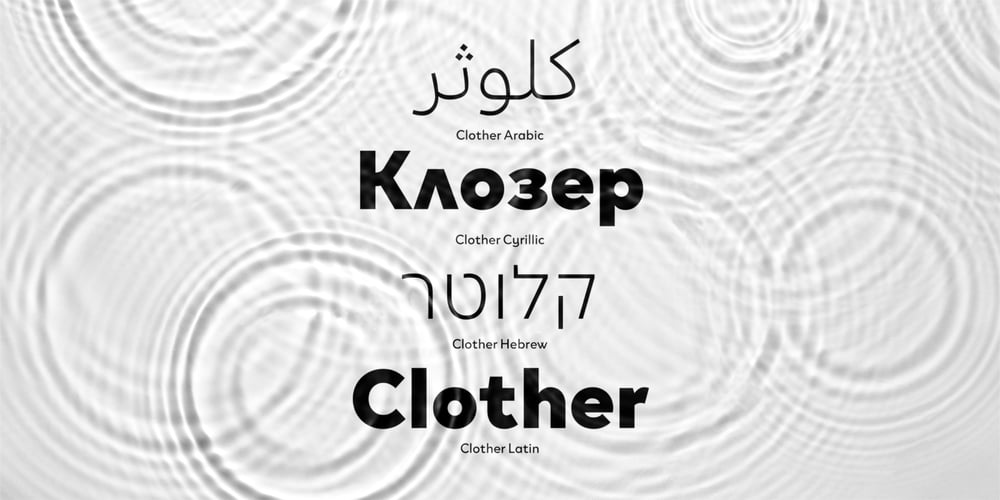
Clother Cyrillic
Clother Cyrillic font
Clother Cyrillic Font Family was designed by Jérémie Hornus, Ilya Naumoff and published by Black Foundry. Clother Cyrillic contains 8 styles and family package options. Clother is a striking series of fonts tailored for branding, corporate design, and corporate communication applications. Its geometric sans-serif letterforms offer a distinct visual appeal. The font family supports various languages and encompasses four writing systems: Arabic, Cyrillic, Hebrew, and Latin. This comprehensive linguistic inclusivity, unified by a cohesive graphic vocabulary, empowers businesses to seamlessly convey their messages across diverse global markets while maintaining a consistent visual identity.Clother Arabic is particularly notable for its extensive ligature collection, which includes over 230 ligatures. These ligatures are specifically designed to restore the organic essence of typesetting in Arabic.The Clother family includes four fonts: Light, Regular, Bold, and Black. Each font’s character set consists of 1318 glyphs. The letterforms feature more personality than you might expect from a geometric sans. This quality is evident in the fonts’ lowercase “f”, “g”, and “y”, although the “K”, “k”, “W”, and “w” also have rather unique forms. Strengthening Clother’s geometric girding, its fonts’ lowercase “a” and “g” are single-storied. Like the open counters in the “f”, “g”, and “y”, they contribute to the very rounded feeling that is present throughout the fonts’ lowercase. Dots on the letters “i” and “j”, as well as the punctuation marks and dot-based diacritics, are drawn with circular forms. Clother’s letters have low stroke contrast; they are almost monolinear in their appearance. The lowercase letters’ x-height is not particularly high, and the fonts’ ascenders are taller than the height of the capital letters. Clother’s default numerals are proportional lining figures, but tabular lining and proportional oldstyle figures are also included.